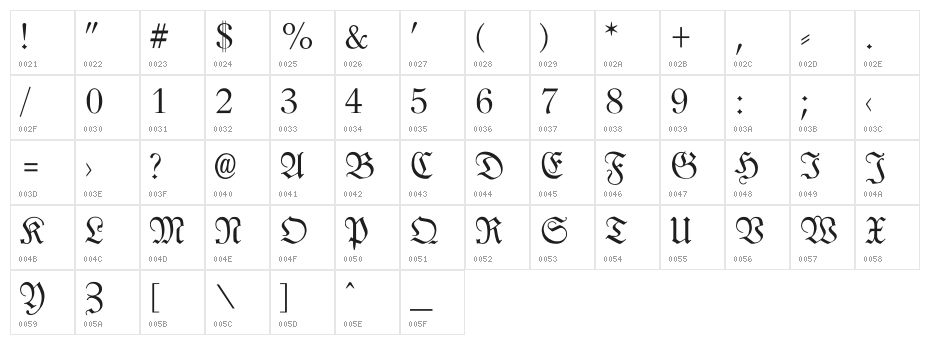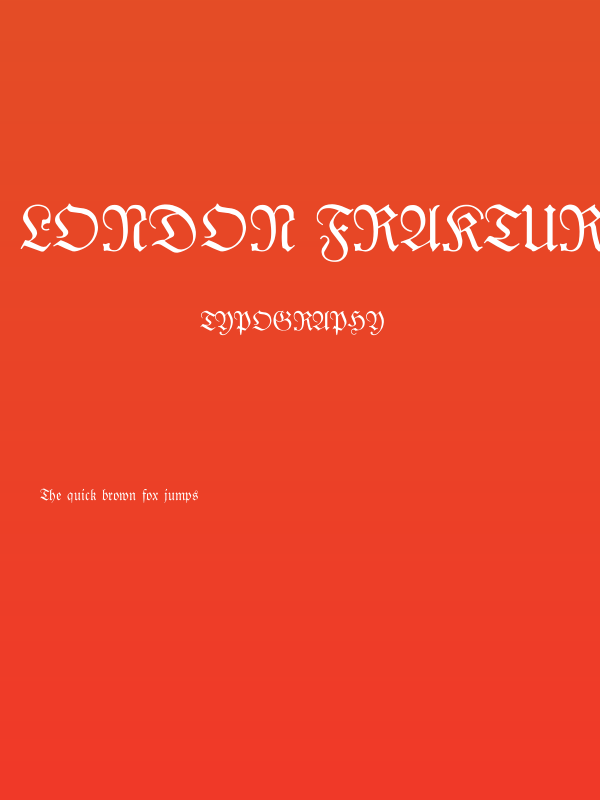
London Fraktura Font
London Fraktura Description
This font exhibits a classic blackletter style, characterized by its ornate and intricate letterforms. The uppercase letters feature sharp, angular lines with decorative flourishes, while the lowercase letters maintain a similar aesthetic with slightly more rounded forms. The numbers are bold and consistent with the overall style, providing a cohesive look. Special characters are designed with the same attention to detail, ensuring they blend seamlessly with the alphabet. This font is reminiscent of traditional Gothic script, often used in historical and formal contexts.
Overall StyleClassic
Use CaseHeadlines, Logos, Decorative text
Proposed ProjectsIdeal for historical documents, certificates, wedding invitations, book covers, and branding that requires a traditional or formal touch.